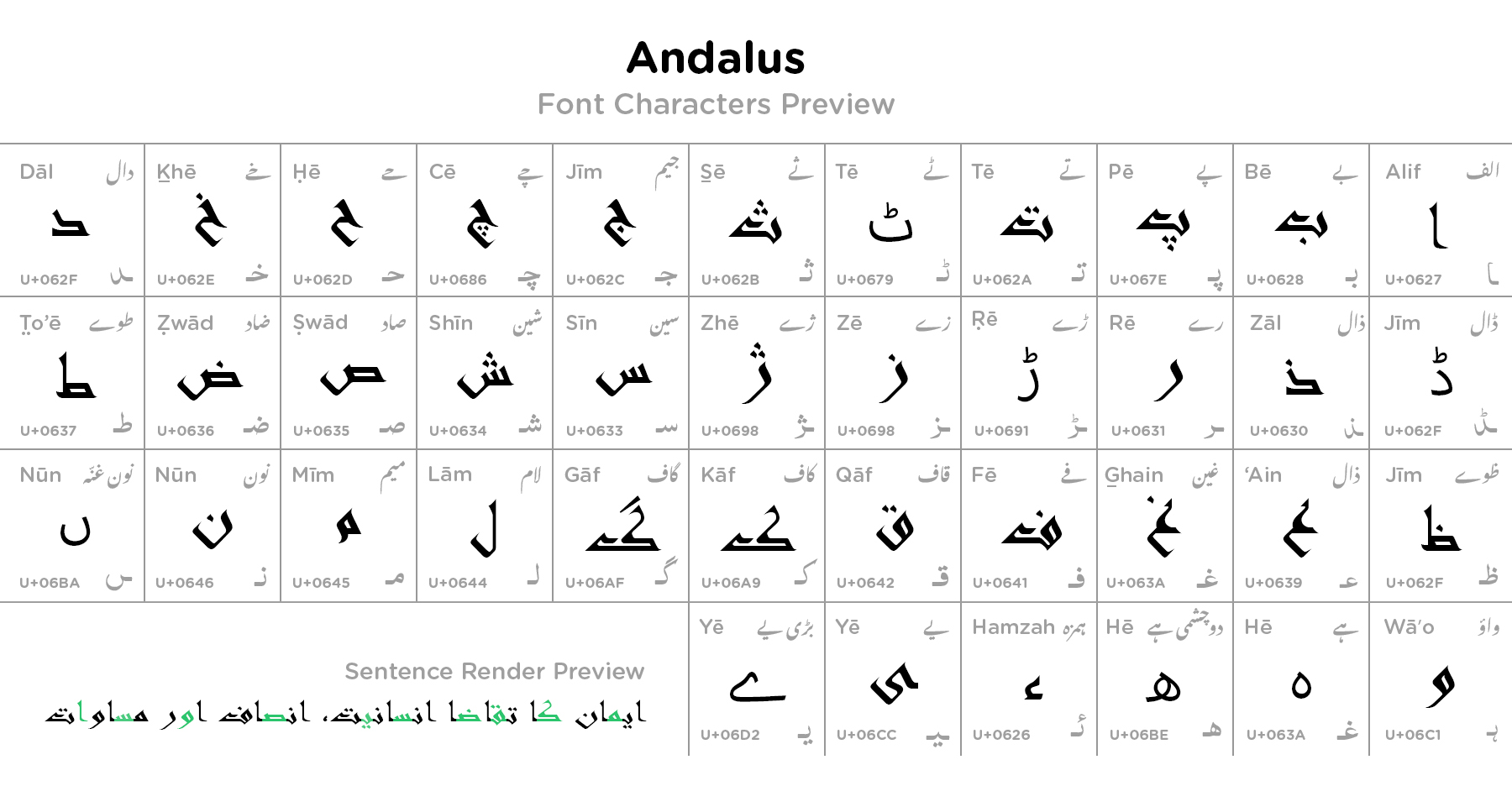
Andalus, designed by Mohammad Alagha and Mamoun Sakkal and published by Microsoft, is a decorative Arabic display font released in 2011. Inspired by the Kairawani Kufic script, it offers a contemporary interpretation suitable for headlines, titles, posters, and artistic graphic design projects.
With 492 characters and 518 glyphs, Andalus ensures compatibility with Urdu, Arabic, Latin, Persian, and more languages, adhering to Unicode standards for seamless integration across different platforms and languages. While its intricate design may result in lower legibility, particularly for longer texts, it excels in shorter text blocks where its artistic flair can shine. The font features a thick overall appearance, denser towards curves and thinner near the edges, with impactful and changing strokes. It expresses the essence of the Kufic script with its unique decorative edges, characterized by pointy shapes and small triangular elements. The font prioritizes legibility on digital screens with clear lines, distinct shapes, and open counters. It incorporates subtle geometric influences and minimal ornamentation, offering a clean and structured aesthetic suitable for various applications, including branding, advertising, and decorative purposes.